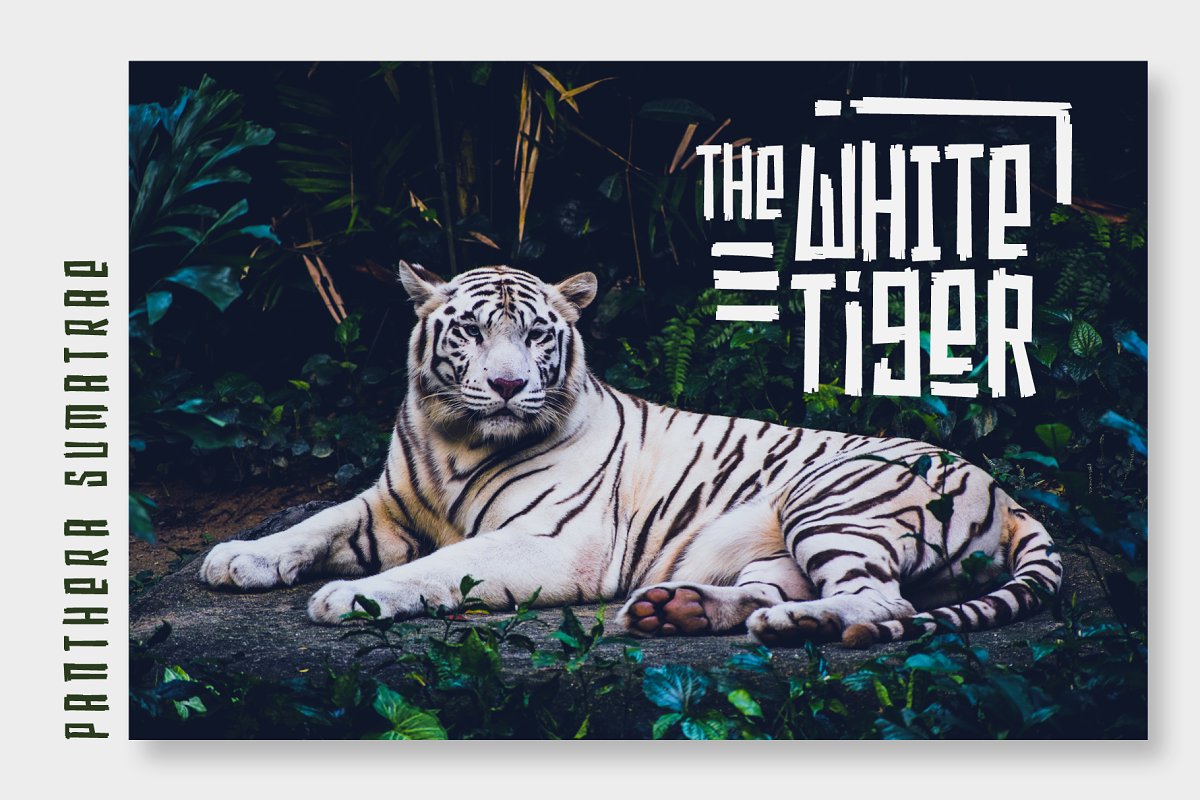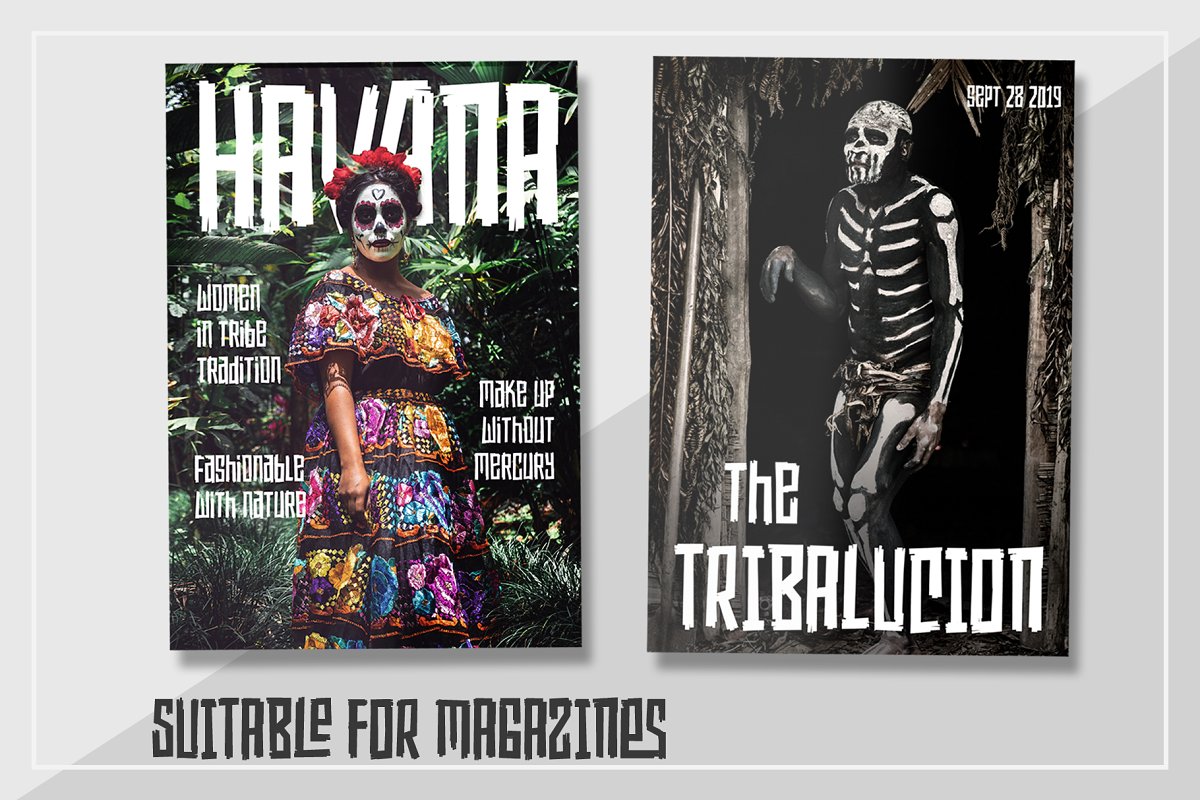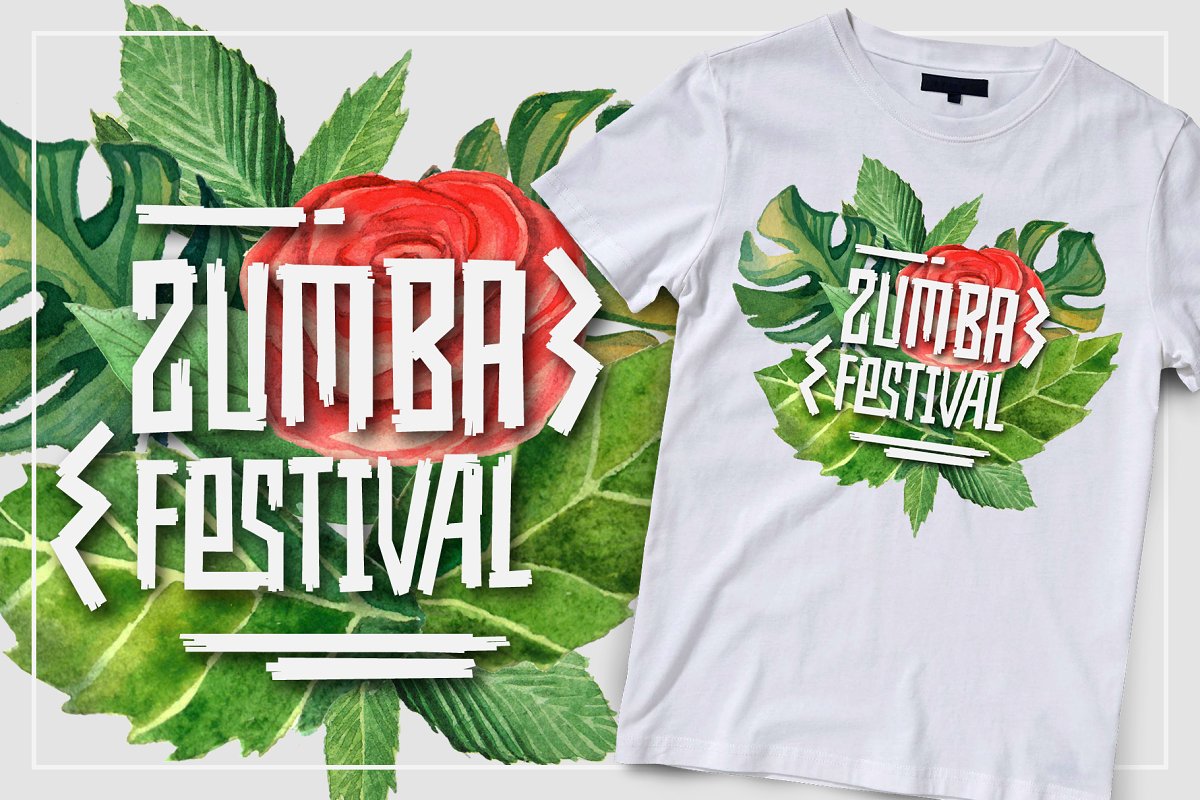
About the Afolkalips
Introducing ‘Afolkalips’ a tribal display font, Inspired by wood shapes and tribe ornaments, All caps font with strong strokes that very recommended for headline or display on a traditional themes, Complete with 50+ custom ligatures that give you more variations, Also featured with 28 accents, This font also has ornament swashes to give your design more tribal looks, you can use the swashes as a frame or decoration
Suitable for your design such as poster, flyer, t-shirt design, logo, magazine, signage, or billboard, Afolkalips is a minimalist-joyful font which is flexible to apply in bright theme or elegant style, What you’ll get:UppercaseLowercaseNumbersPunctuationsSymbolsStylistic alternatesLigaturesAccentsCheck out our new tribal font Rimba Andalas: https://crmrkt